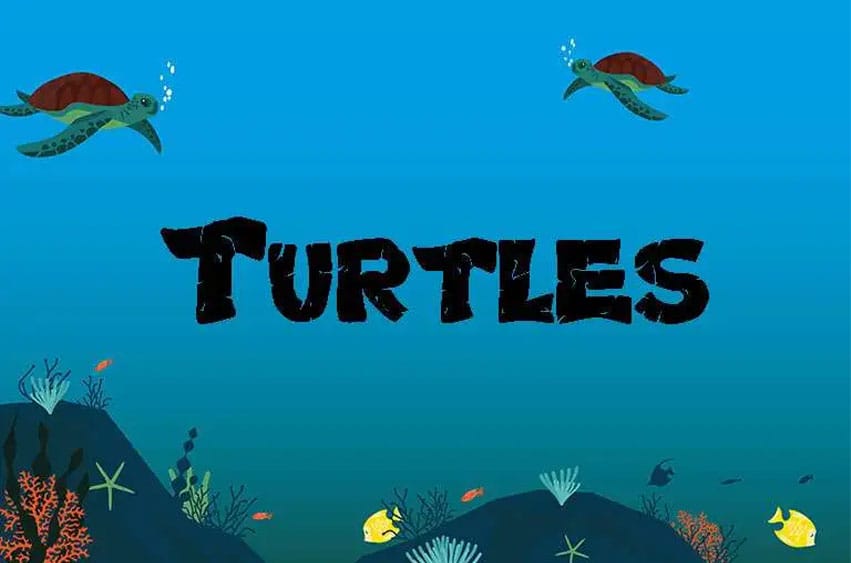
Turtles Font Fancy font pays homage to the iconic Teenaged Mutant Ninja Turtles toyline and cartoon from the 1980s, featuring all letters in the alphabet, punctuation with extended letters, Euro, as well as replacing ‘at’ symbols with Foot Clan icons.